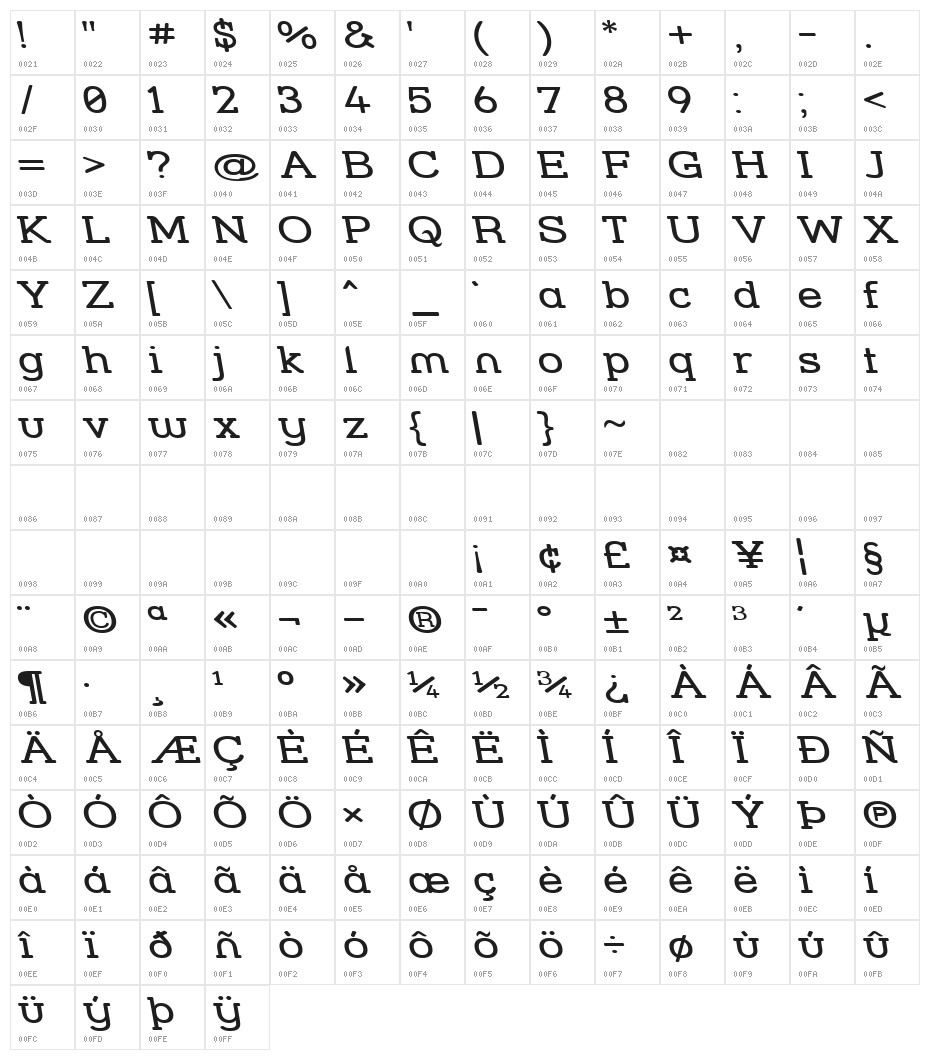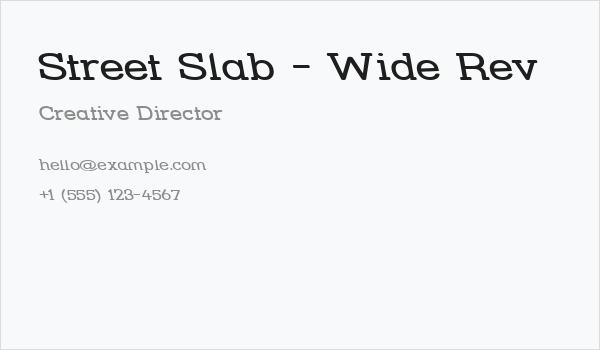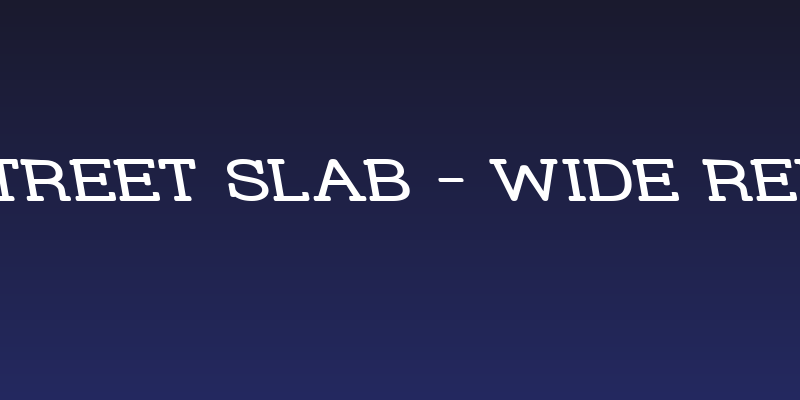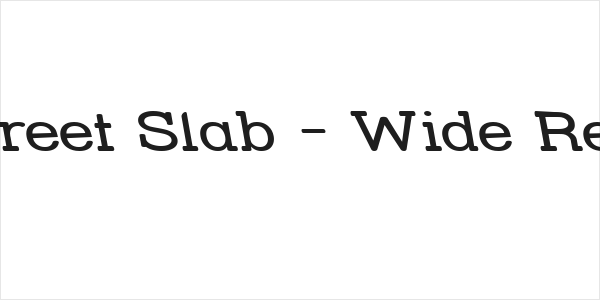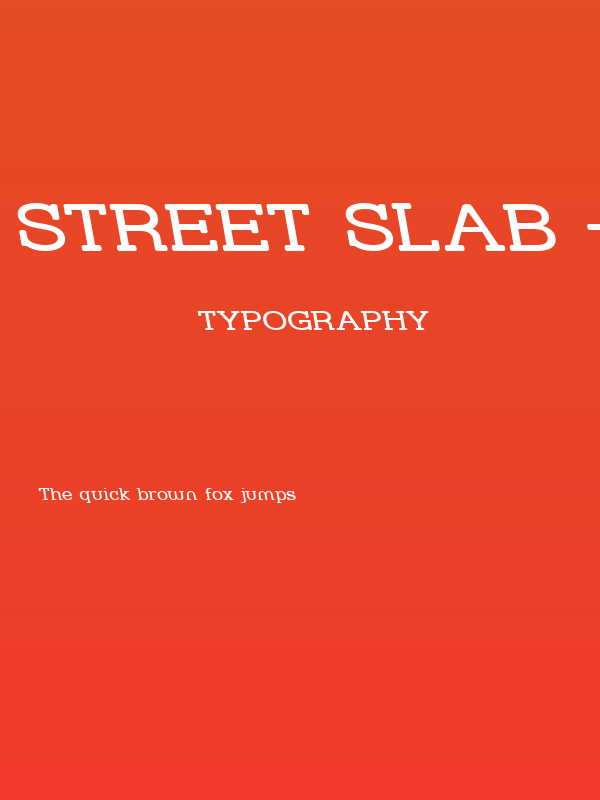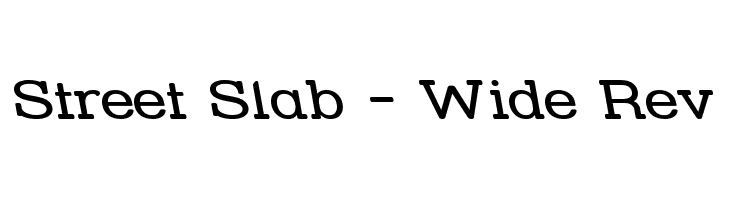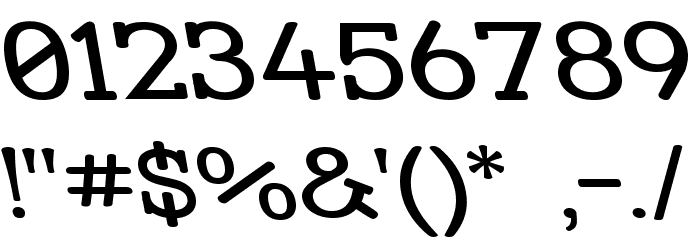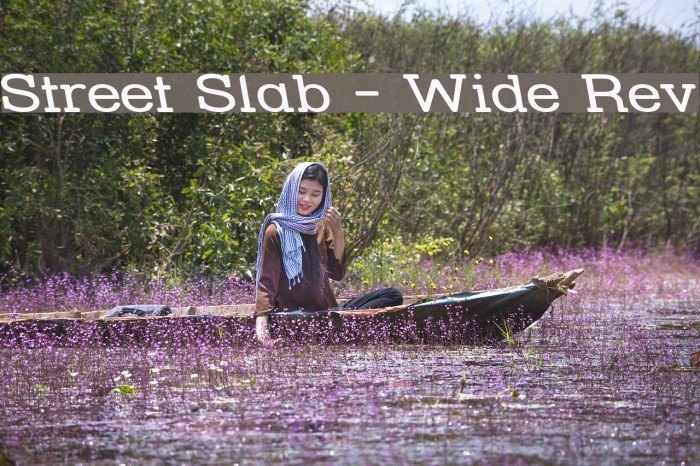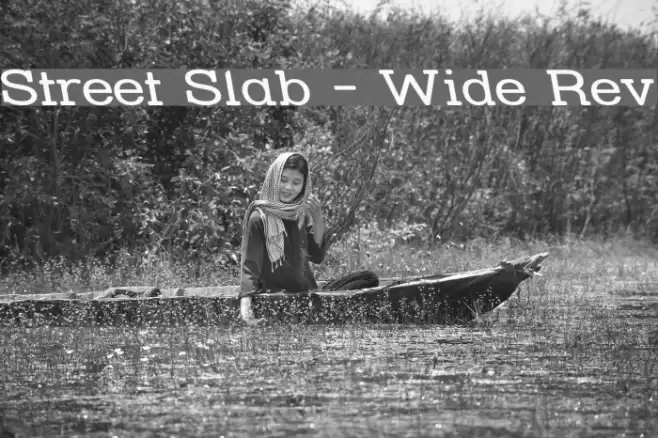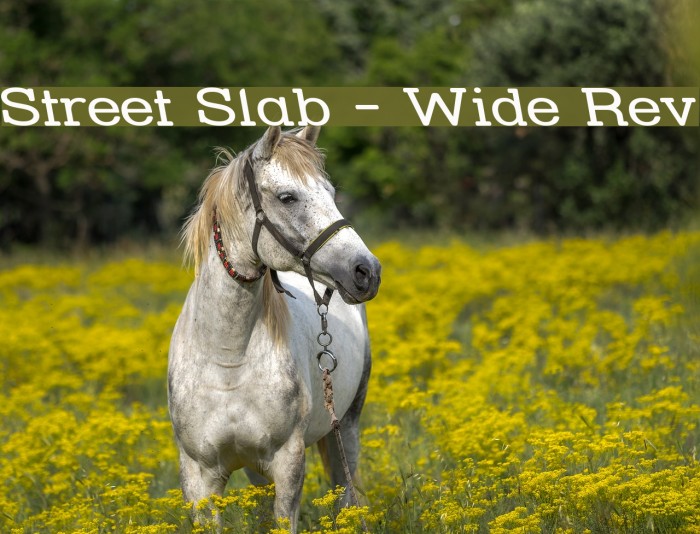
Street Slab - Wide Rev Font
Street Slab - Wide Rev Description
This font features a bold and robust slab serif design, characterized by thick, block-like serifs that give it a strong and commanding presence. The letters are wide, providing a sense of stability and confidence. The uppercase and lowercase characters maintain a consistent weight, ensuring readability and balance. The numbers and special characters are designed with the same boldness, making them stand out effectively. The overall style is modern yet retains a classic touch, suitable for various design applications.
| Proposed Projects | Ideal for headlines, posters, branding, and signage where a strong, impactful presence is desired. |